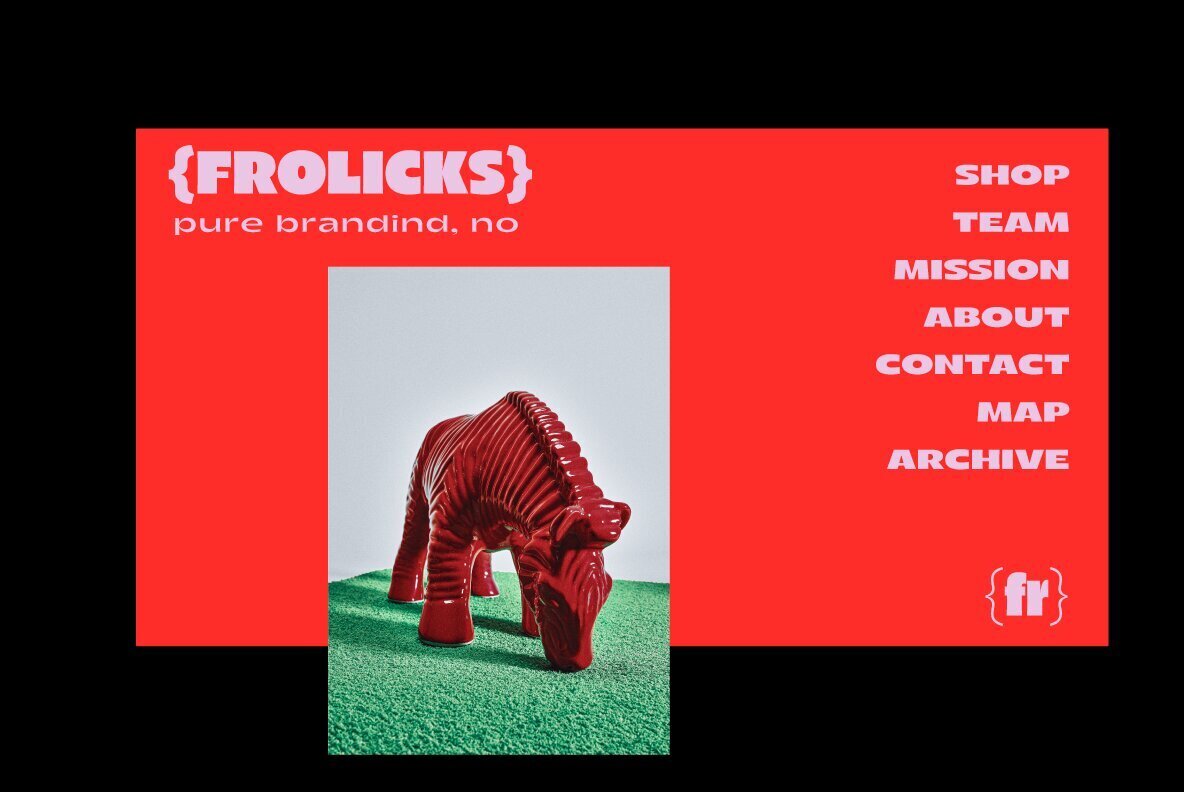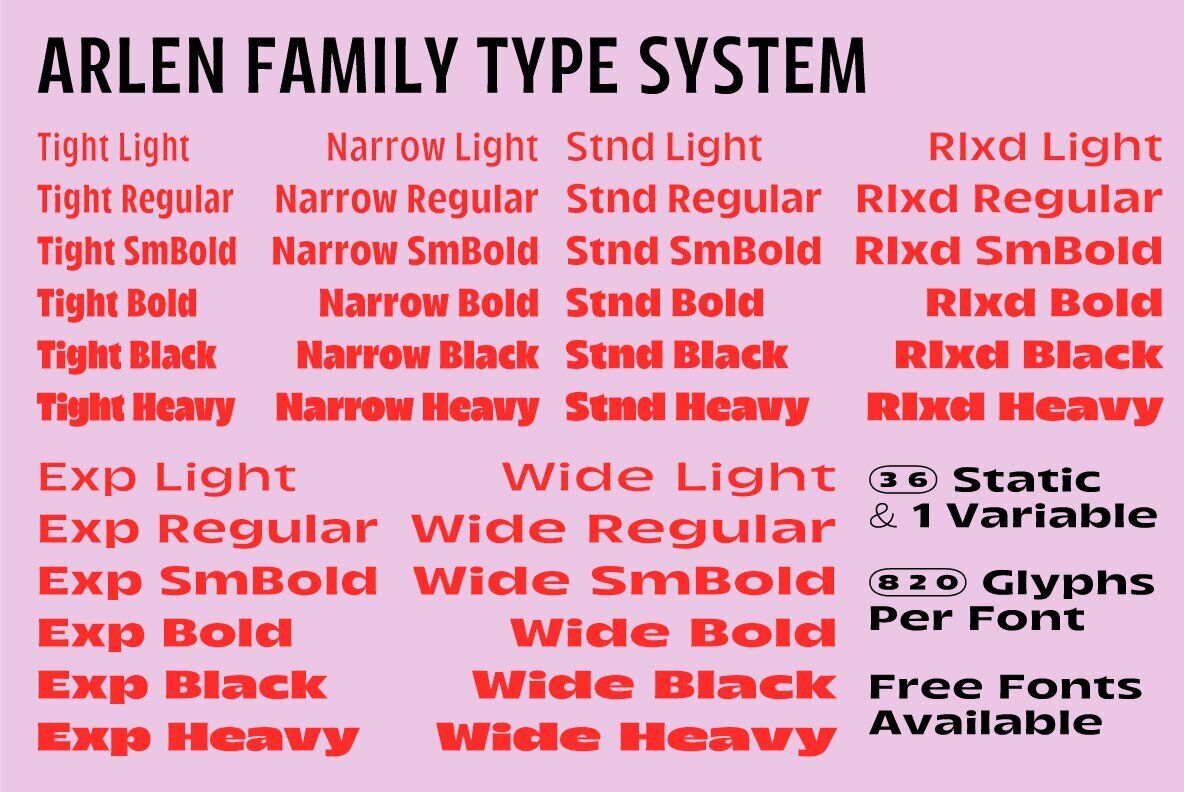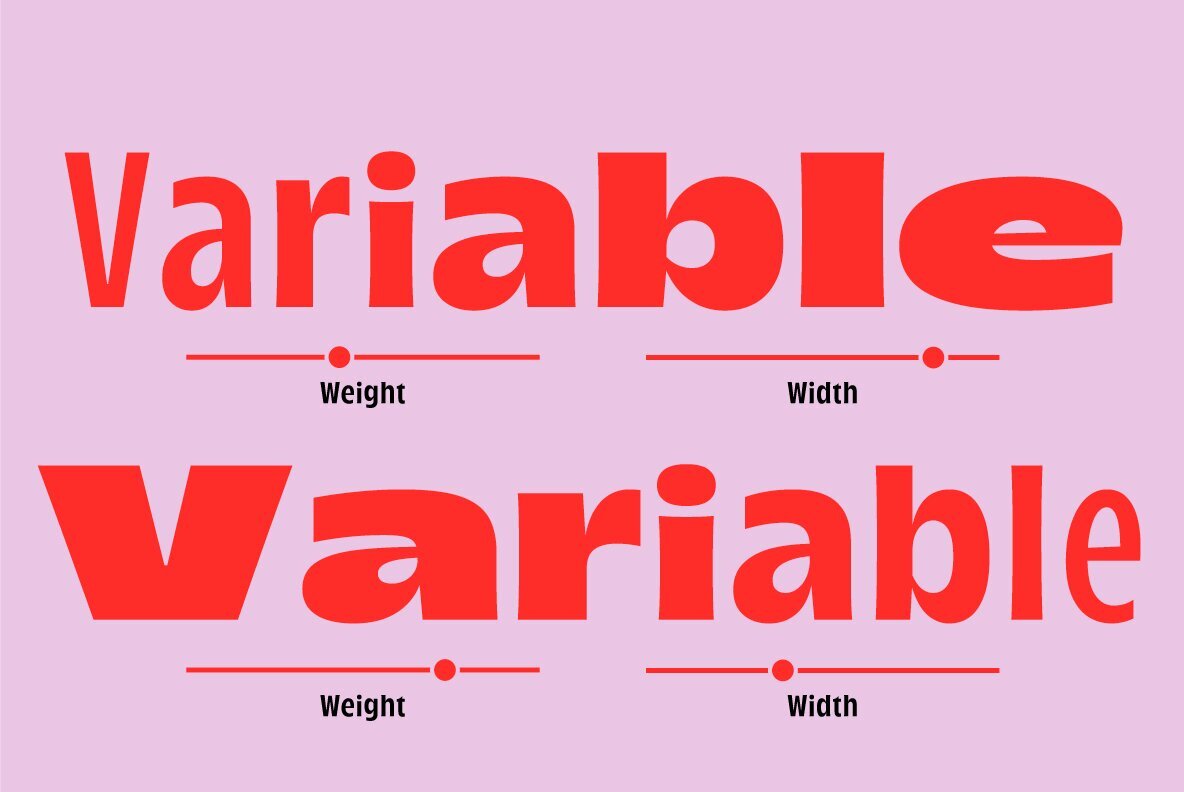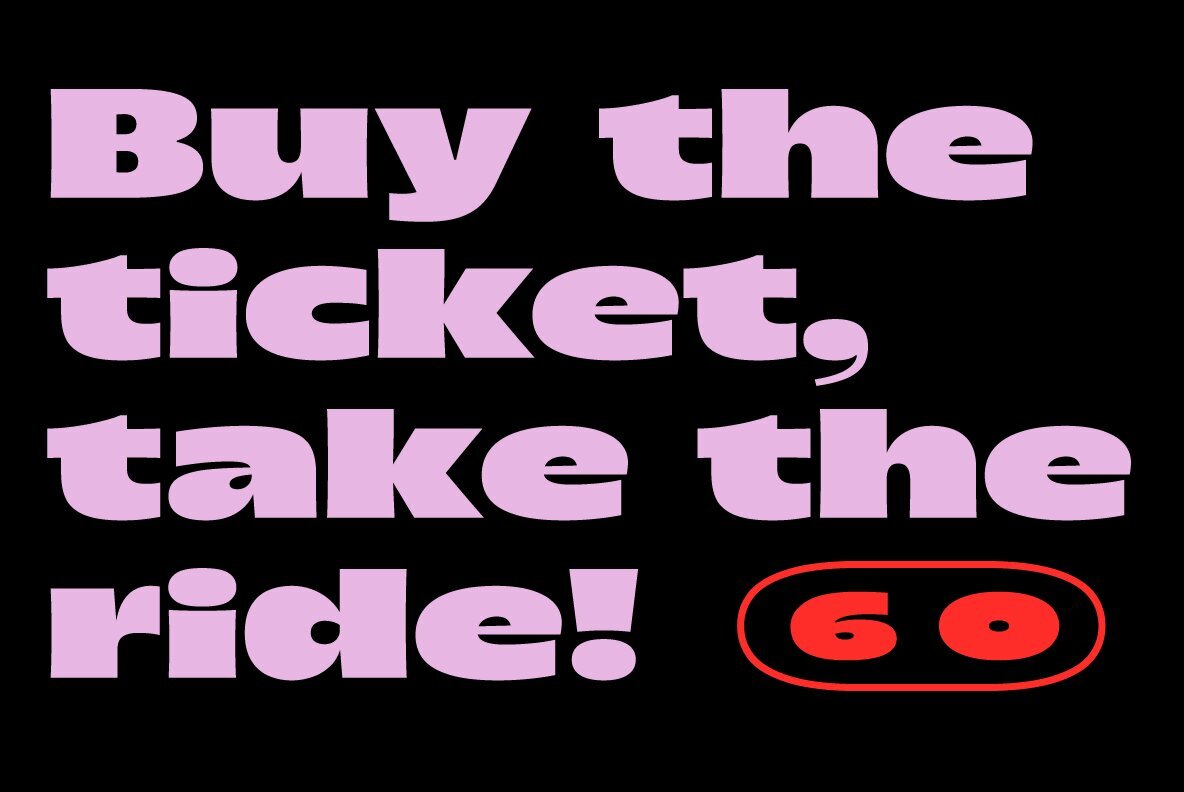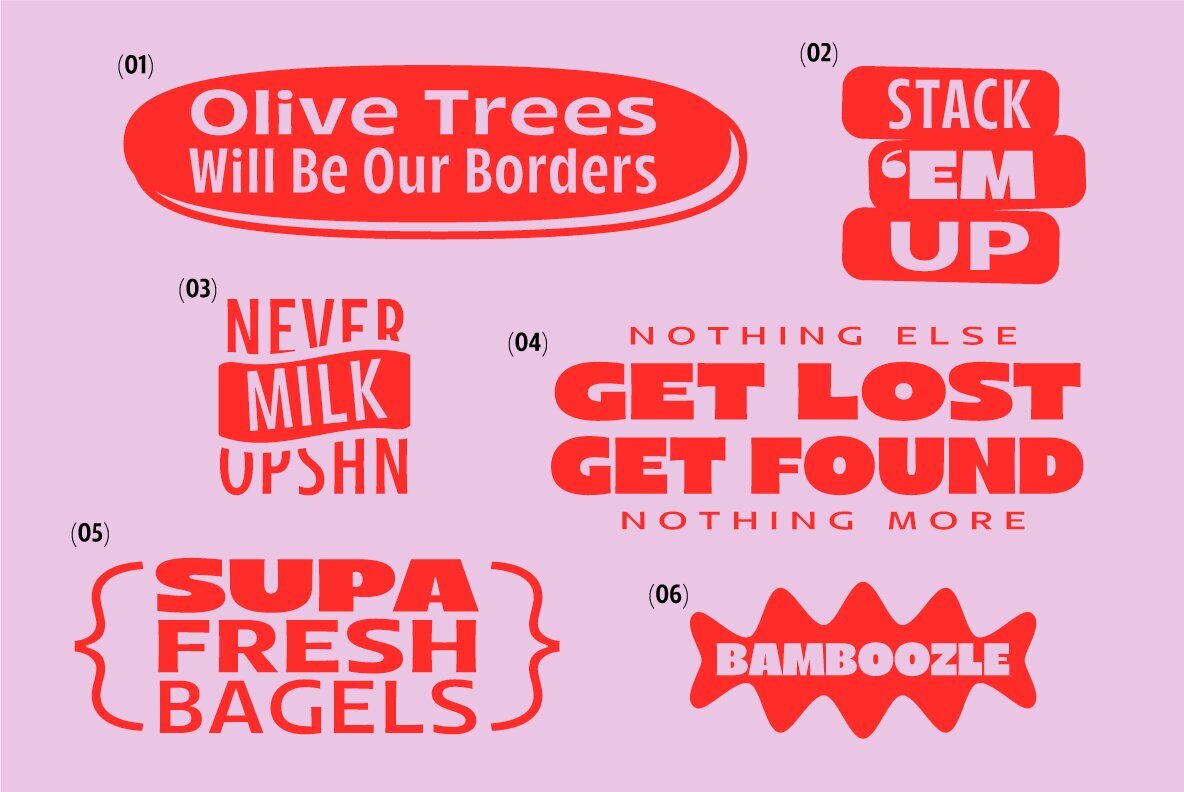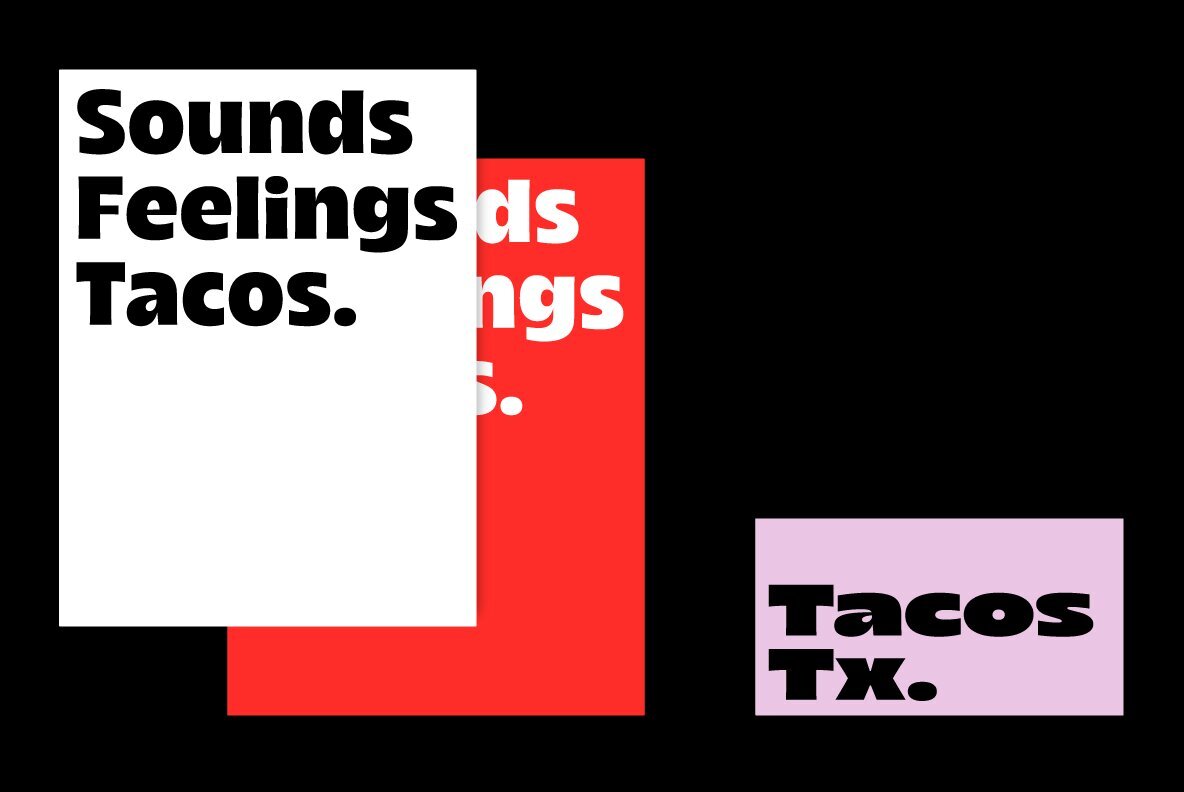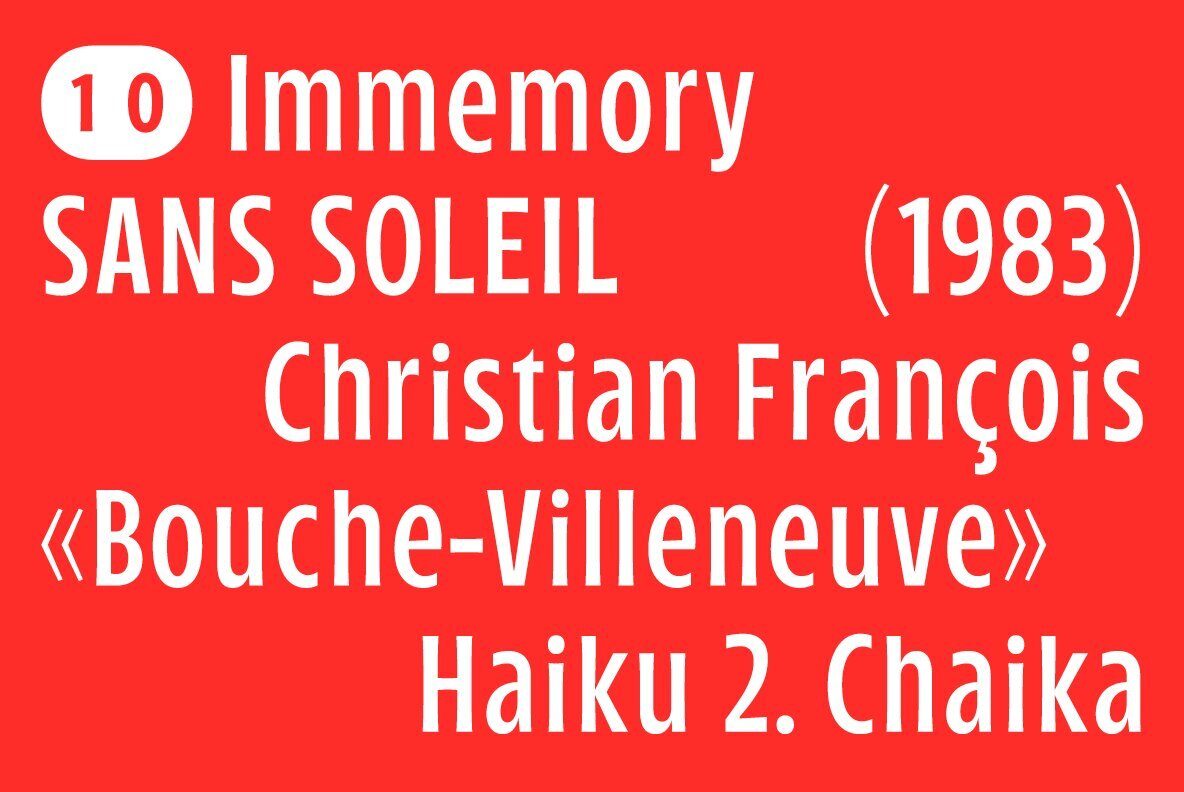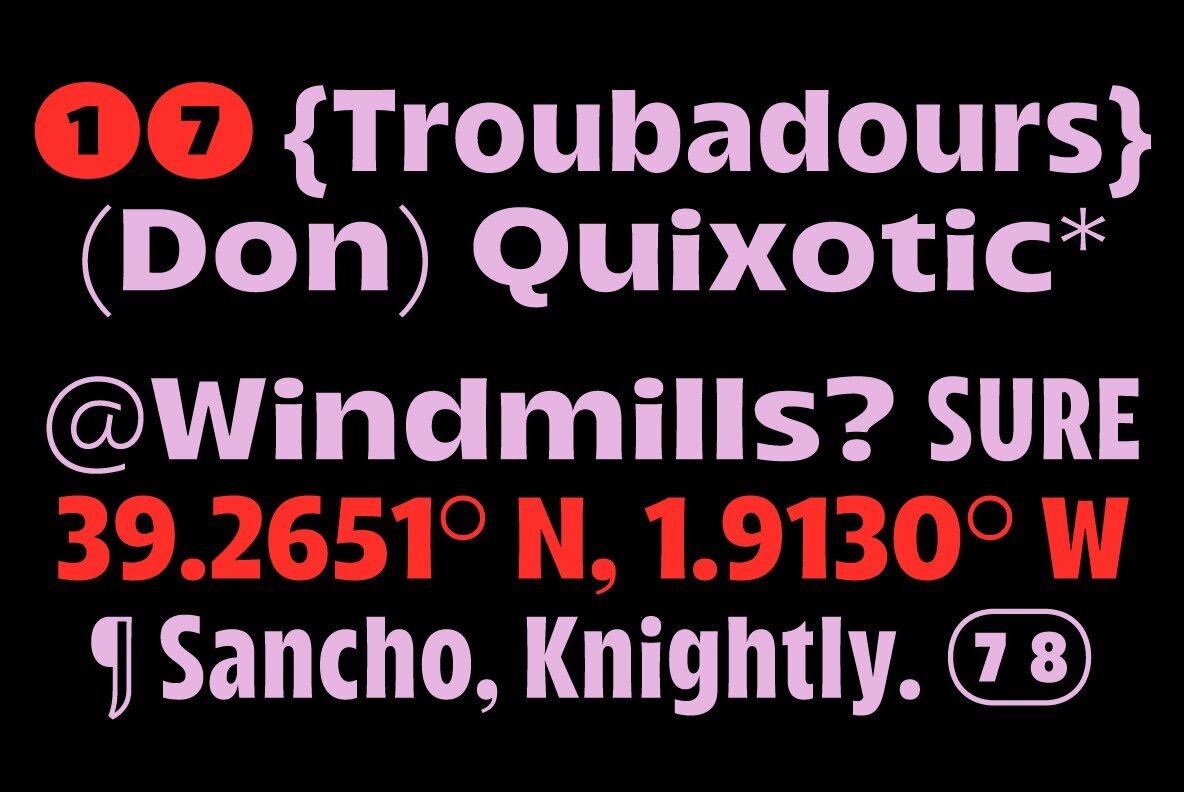
Arlen Font
Meet Arlen, a funky, variable type family in 36 styles. Inspired by hand-painted signs and the 1980's aesthetics, Arlen adds a little extra to this already charismatic mix. Arlen is a display sans serif that can be freely used for larger bodies of text. Among its most prominent visual features are high contrast, flaring stems and dynamic letterforms.
With 860 characters in each font, Arlen supports most Latin-based languages and offers a large number of extra characters, dingbats, alternate glyphs, ligatures, and punctuation marks. Some of the most useful OpenType features are included too, such as Case-Sensitive Punctuation, Stylistic Alternates, Tabular Figures, Fractions, Localization, and a lot more. Some letters and characters come in two versions: thin and bold, and you can easily alternate between the two using a corresponding stylistic set. Arlen supports most Latin-based languages, as well as Cyrillic languages.